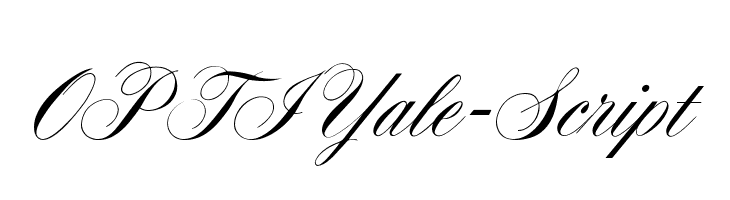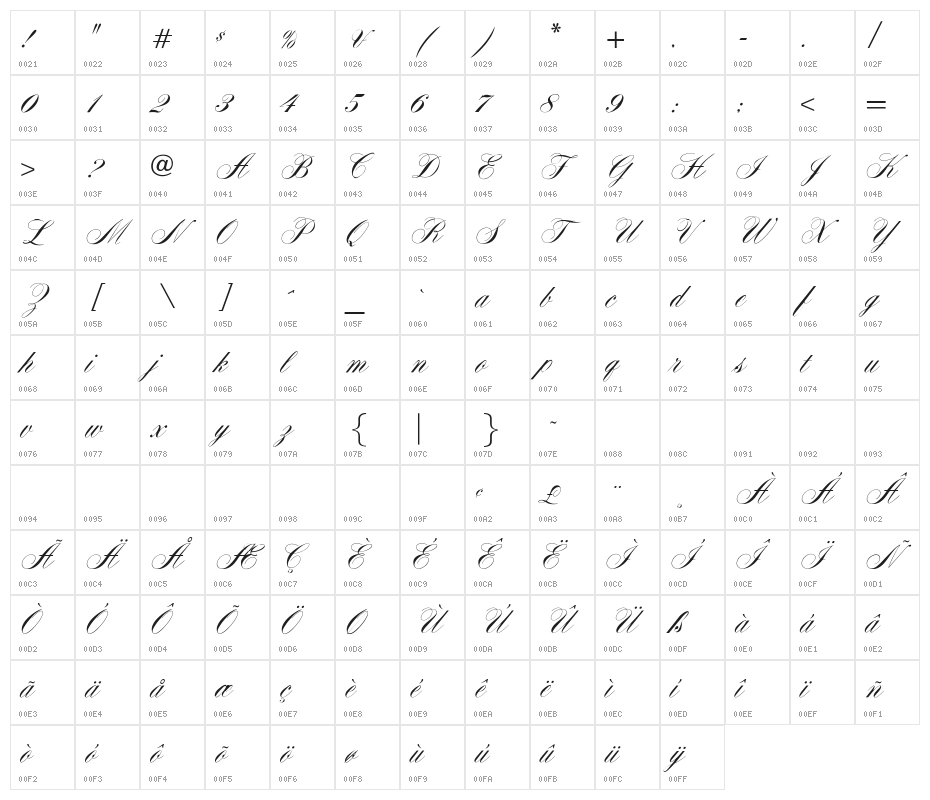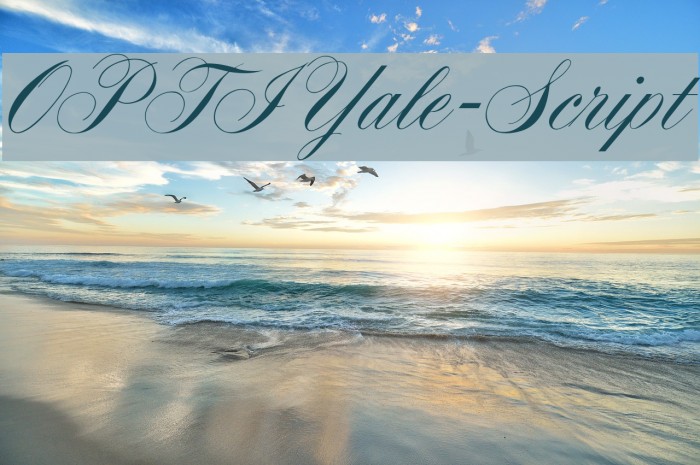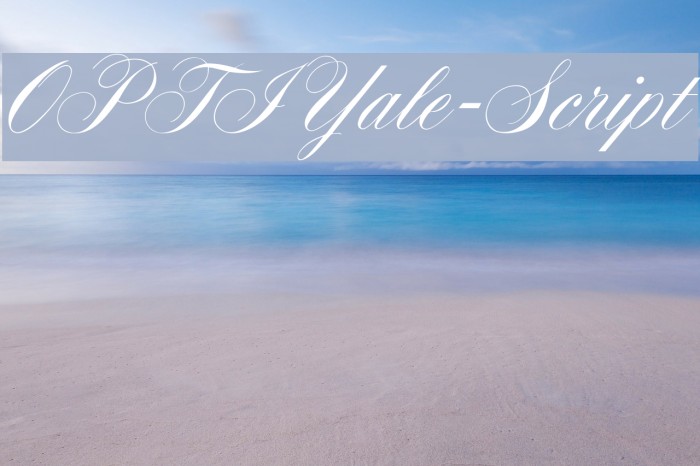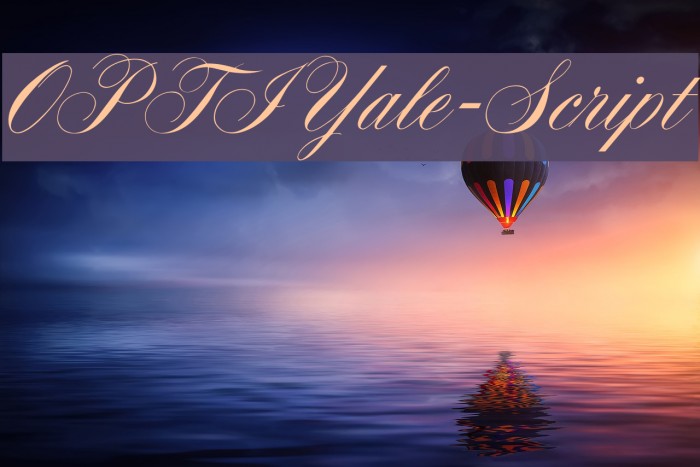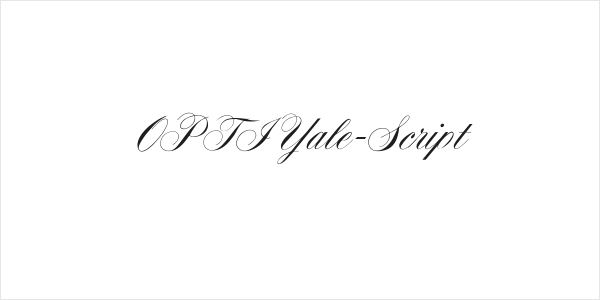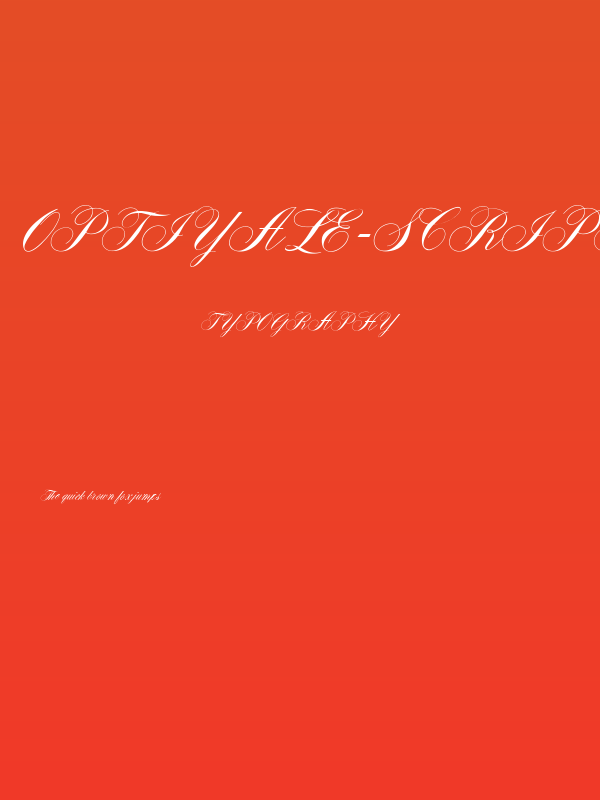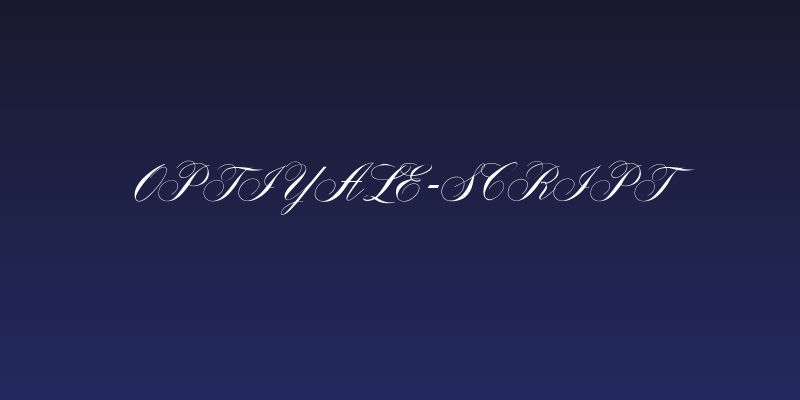
OPTIYale-Script Font
OPTIYale-Script Description
This elegant script font features fluid, cursive strokes that exude sophistication and grace. The uppercase letters are intricately designed with sweeping curves and flourishes, while the lowercase letters maintain a consistent flow, enhancing readability. The numerals and special characters are crafted with the same attention to detail, ensuring a cohesive look across all text elements. The font's delicate lines and high contrast between thick and thin strokes give it a refined and luxurious appearance, making it ideal for formal invitations, branding, and decorative purposes.